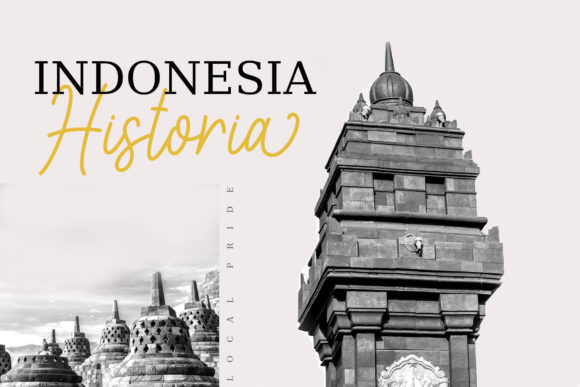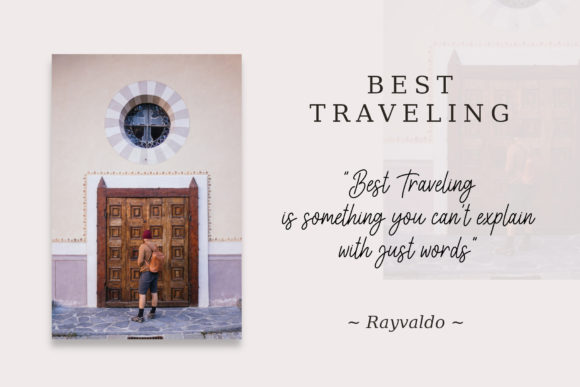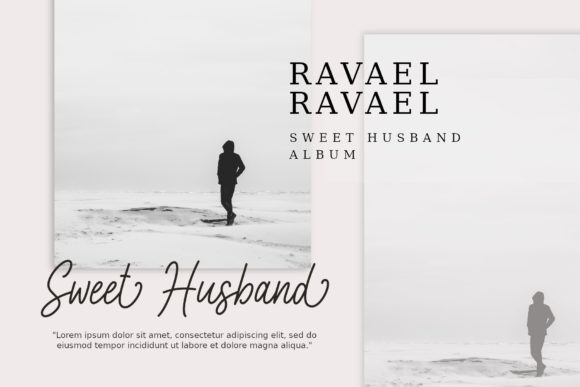
About Better Castile Font
Better Castile is a beautiful, well balanced and stylish script font. It is defined by smooth curves and is perfect for fashion branding or editorial designs. This font is PUA encoded which means you can access all of the glyphs and swashes with ease!